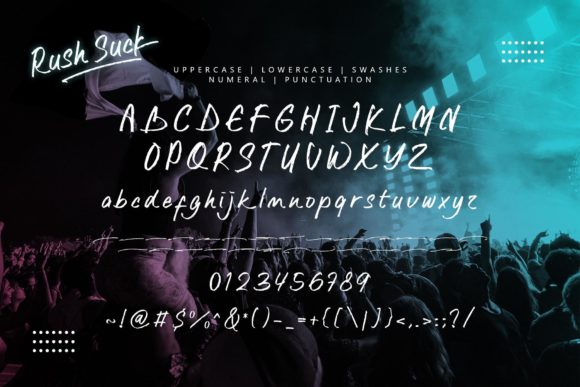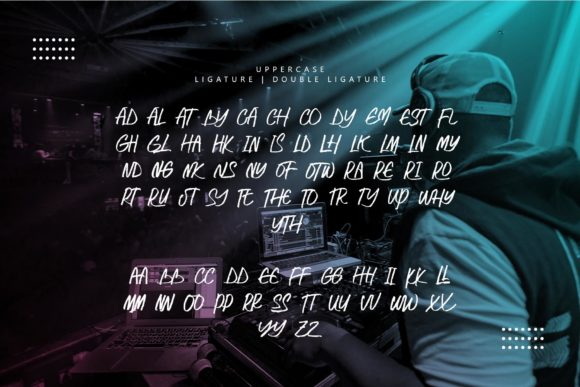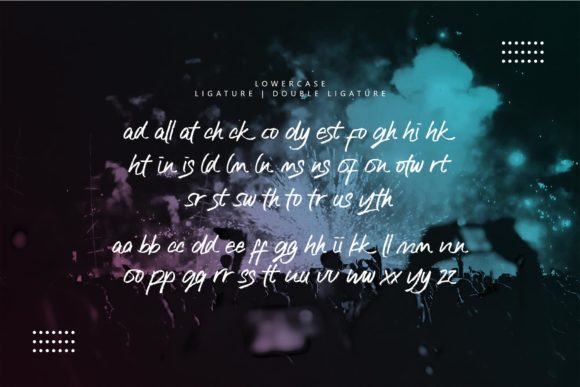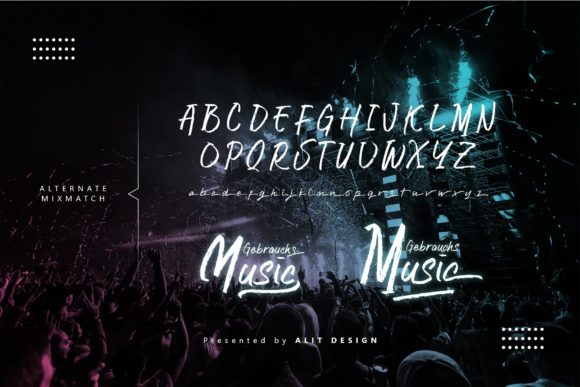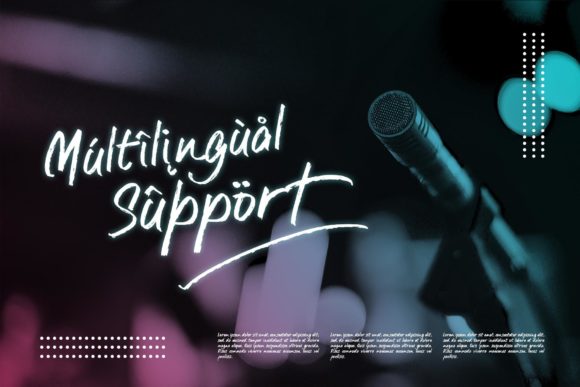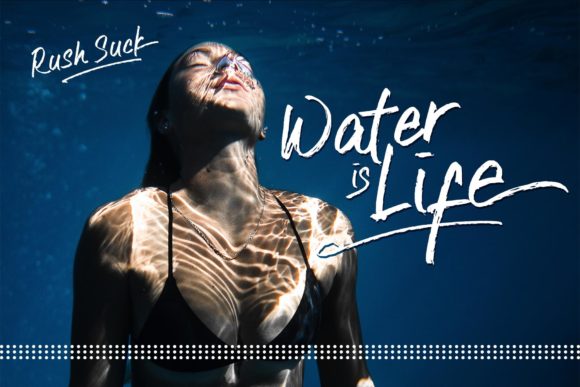
Introduction to Rush Suck Font
Rush Suck is a cool, casual and trendy handwritten font.
It is PUA encoded which means you can access all of the glyphs and swashes with ease Fall in love with its incredibly versatile style and use it to create spectacular designs.
Key Features of Rush Suck Font